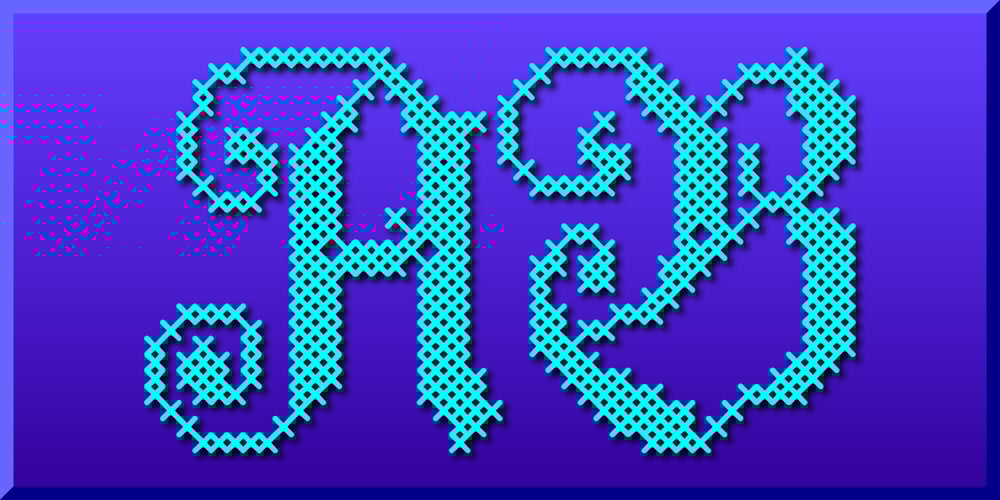
Cross Stitch Elaborate Font Family was designed by Gerald Gallo and published by Gerald Gallo. Cross Stitch Elaborate contains 1 styles and family package options. Cross Stitch Elaborate is based on upper case characters 25 stitches tall. It is not intended for text use. It was designed specifically for use as fancy monograms or initials. Cross Stitch Majestic has an uppercase alphabet located under the shift+character set keys.